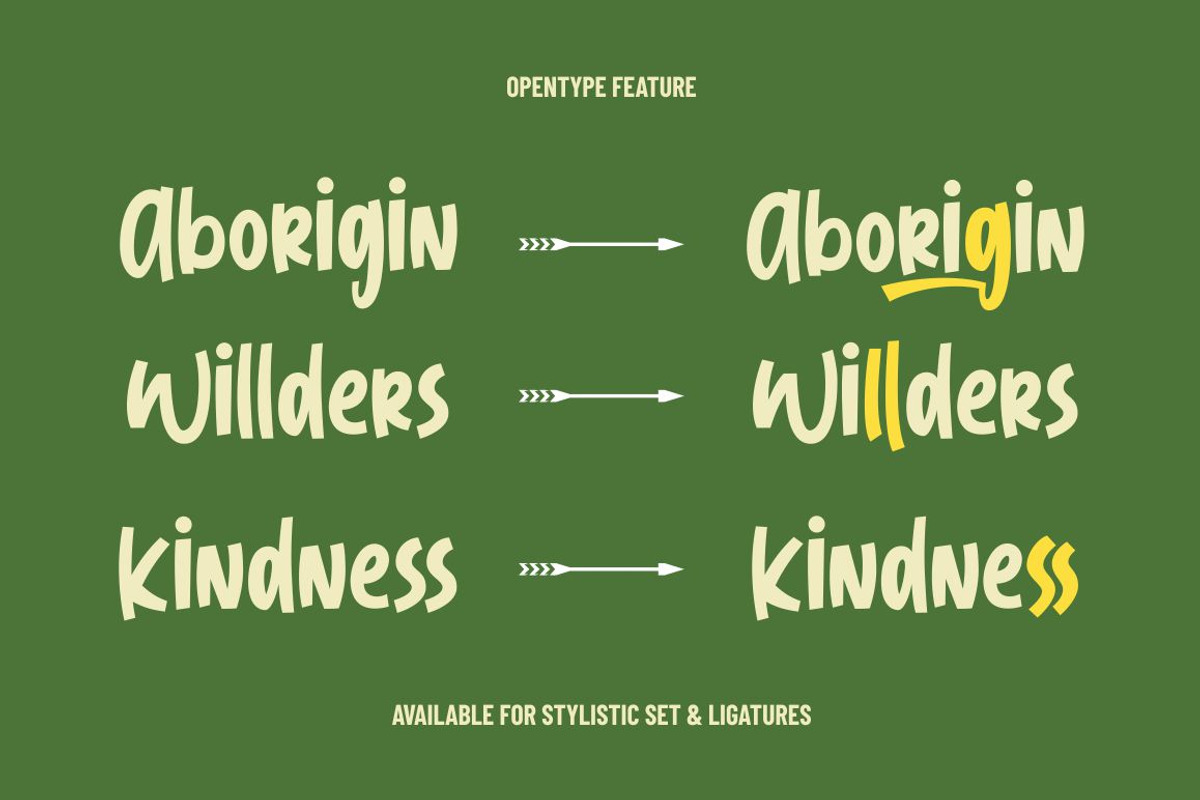
Jungle Land Kids
Introducing Jungle Land – Display Font
Jungle Land combines attractive curves with a fresh urban edge; delivering a stylish script which is guaranteed to add an eye-catching appeal to your logo designs, brand imagery, quotes, product packaging, merchandise & social media posts
- Uppercase & Lowercase letters -Numbers & Punctuation